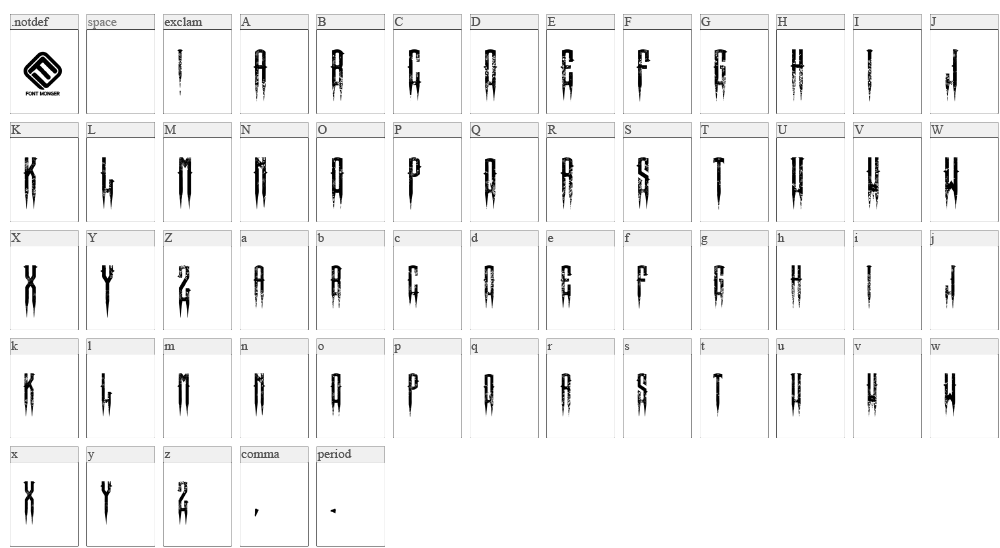
Lowercase: Same as uppercase, scaled down 20%
Numbers: No
Symbols & Punctuation: Comma, period, and exclamation point only
Accents: No
Style: Spiked, Horror, Terror, Metal, Death Metal, Halloween, Blackletter